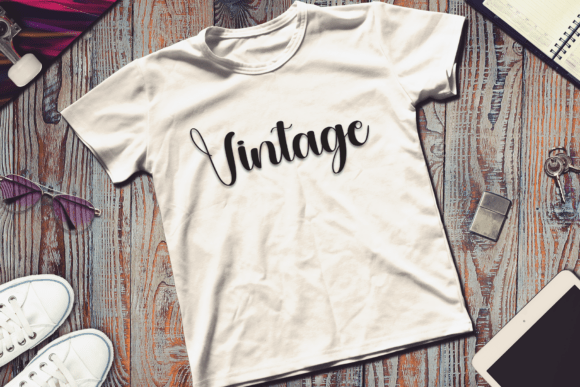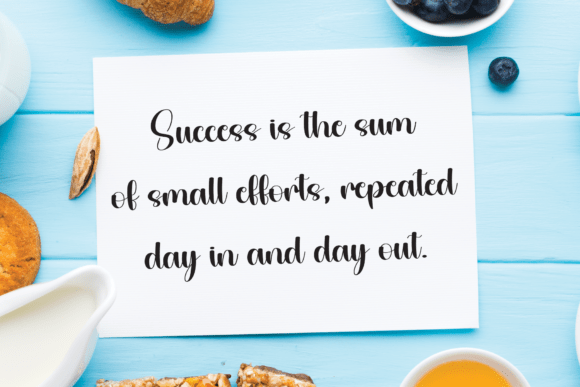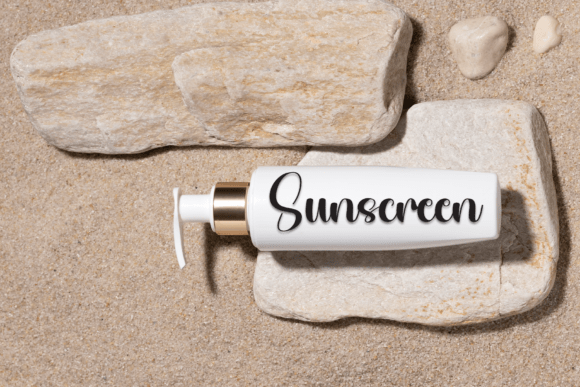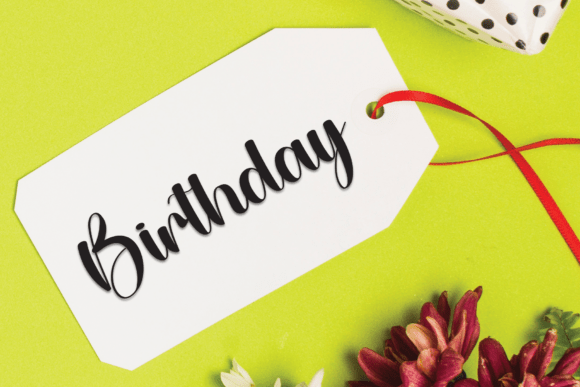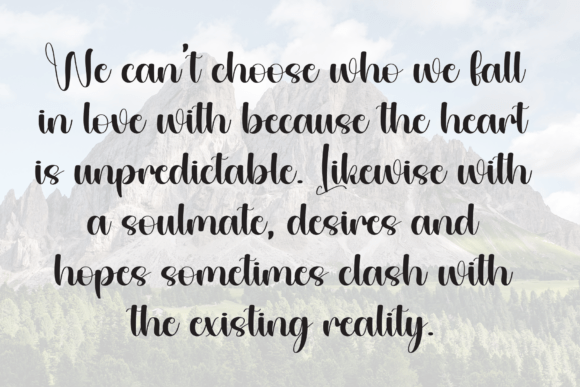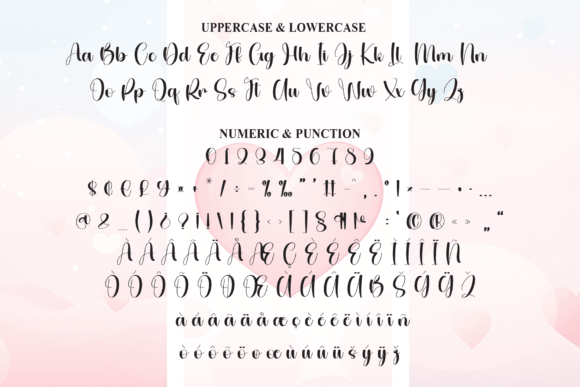
Introducing Hearted Font: Elevate Your Designs with Elegance and Modern Charm
In the world of typography, fonts play a crucial role in conveying the tone and personality of a design. For designers and crafters seeking to add a touch of sophistication and elegance to their work, Hearted Font is an exceptional choice. This stylish script font is designed to exude modern charm, making it perfect for a wide range of applications, from logos and invitations to packaging and social media graphics.
The Beauty of Hearted Font
Hearted Font is a masterpiece of modern calligraphy, boasting fluid strokes, graceful curves, and carefully balanced letterforms. Its design captures the essence of hand-drawn calligraphy, infusing it with a contemporary edge that sets it apart from traditional fonts. The result is a font that not only delights the eye but also adds a personal touch to any design.
Key Features of Hearted Font
- Fluid Strokes: Hearted Font features smooth, flowing strokes that give it a natural, hand-drawn feel.
- Graceful Curves: The font’s curves are meticulously crafted to create a sense of elegance and refinement.
- Carefully Balanced Letterforms: Each letterform is designed to work in harmony with the others, ensuring a cohesive and visually appealing text.
- Contemporary Edge: Hearted Font’s modern twist sets it apart from traditional calligraphy fonts, making it perfect for designers seeking a fresh look.
Uses of Hearted Font
Hearted Font’s versatility makes it suitable for a wide range of design applications, including:
- Logos: Create a lasting impression with a custom logo that exudes elegance and sophistication.
- Invitations: Add a touch of refinement to your invitations, making them perfect for weddings, parties, and other special events.
- Packaging: Elevate your product packaging with a font that conveys luxury and quality.
- Social Media Graphics: Make your social media posts stand out with a font that adds personality and flair.
Why Choose Hearted Font?
With so many fonts available, why choose Hearted Font? Here are just a few reasons:
- Visual Appeal: Hearted Font’s unique design makes it a standout choice for designers seeking to create visually stunning work.
- Versatility: Its adaptability makes it suitable for a wide range of design applications, from print to digital media.
- Elegance and Sophistication: Hearted Font adds a touch of refinement to any design, making it perfect for brands and designers seeking to convey luxury and quality.
Tips for Using Hearted Font
To get the most out of Hearted Font, consider the following tips:
- Pair it with a Sans-Serif Font: Combine Hearted Font with a clean sans-serif font for a striking contrast.
- Use it Sparingly: Hearted Font’s elegance can be overwhelming if overused. Use it sparingly to create a lasting impression.
Hearted Font is a stylish script font that offers a unique blend of elegance, modern charm, and versatility. Its fluid strokes, graceful curves, and carefully balanced letterforms make it perfect for designers and crafters seeking to add a touch of sophistication to their work. Whether you’re creating logos, invitations, packaging, or social media graphics, Hearted Font is an exceptional choice. With its natural flow and refined details, this font delivers both visual appeal and versatility, making it a valuable addition to any designer’s toolkit.